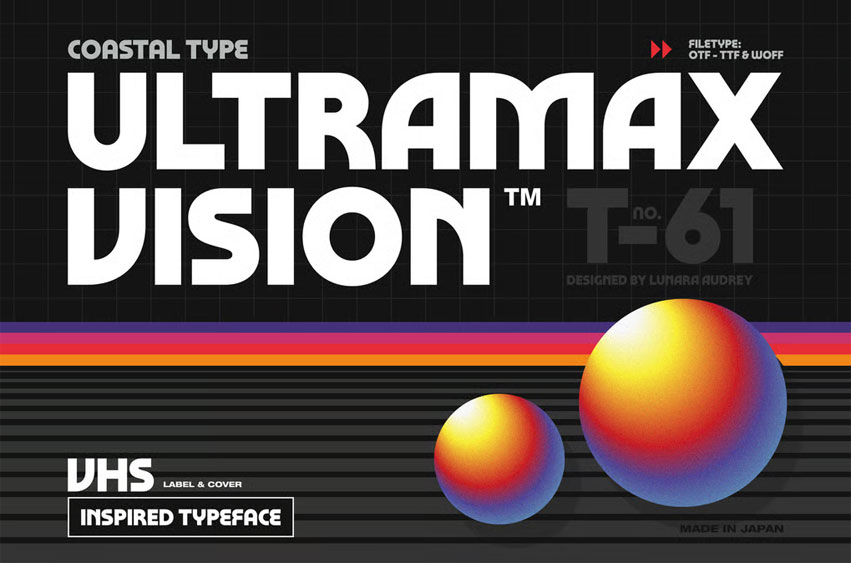
Ultramax Vision Font
Ultramax Vision Font is a geometric sans serif font meticulously crafted to seamlessly marry the allure of the past with the clarity of the future. Channeling the quintessential vibes of the 80s, this typeface draws inspiration from the bold titles on VHS tapes and the captivating labels of retro video game cartridges.
Ultramax Vision is more than just a font; it’s a harmonious blend of vintage charm and modern sophistication. Its geometric structure not only evokes a sense of nostalgia but also brings a level of clarity and cleanliness that is perfect for a multitude of applications. From commanding headlines that demand attention to subtle captions that add a touch of flair, Ultramax Vision is your gateway to a world where classic meets contemporary.
• Unicase
• Punctuation & Number